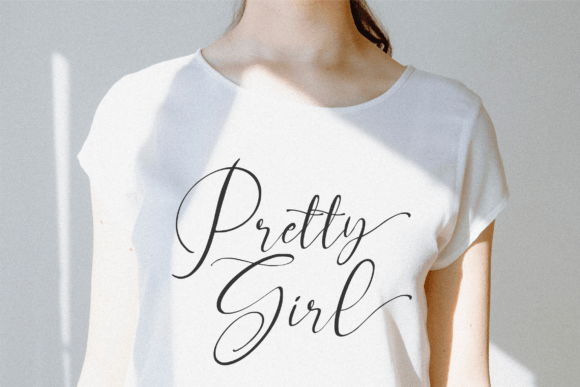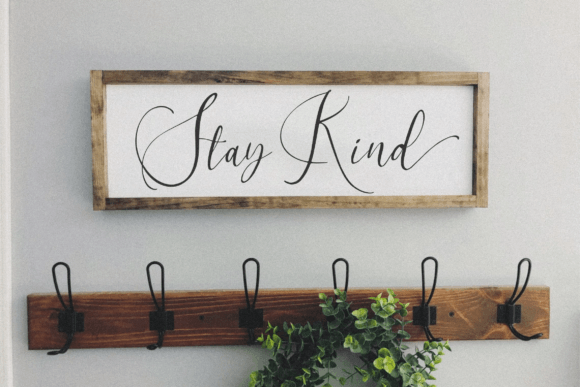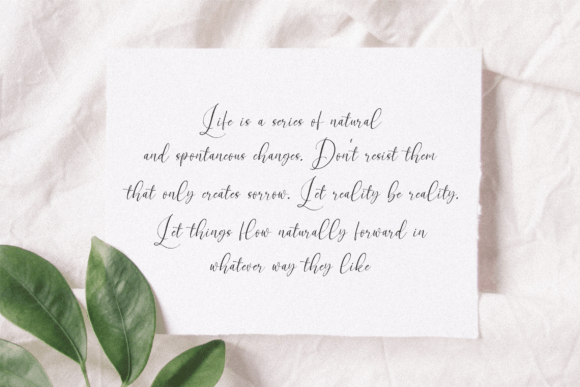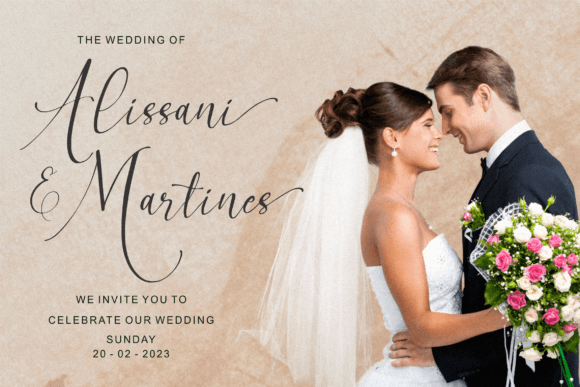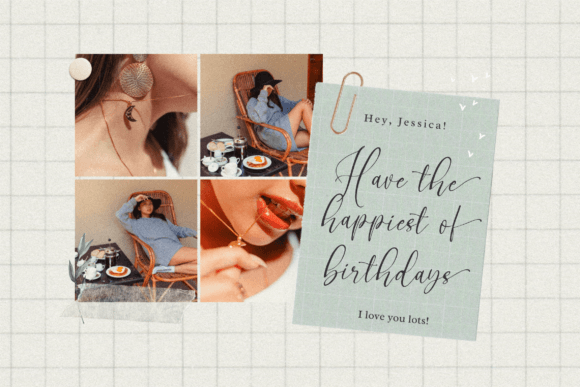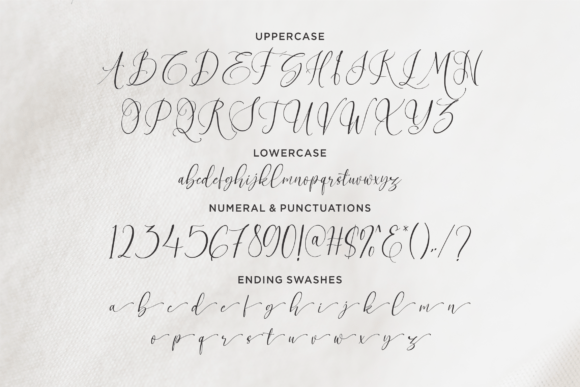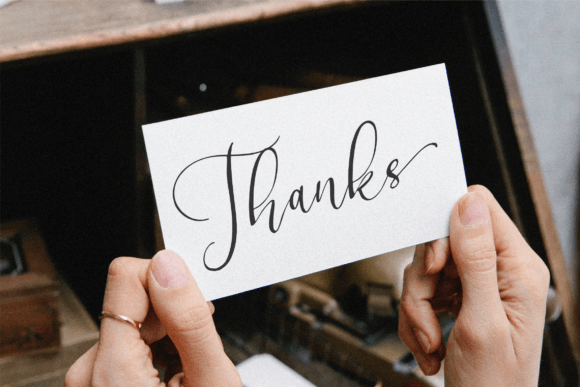
Visualgraph Font
About Visualgraph Font
Visualgraph Font is a dainty and elegant script typeface designed to bring sophistication and charm to your creative projects. Its delicate and flowing letterforms make it ideal for wedding invitations, thank-you cards, quotes, greeting cards, logos, business cards, and any design that benefits from a beautiful handwritten style.
Dainty and Elegant Handwritten Design
Visualgraph features smooth, refined strokes and well-balanced characters that blend clarity with artistic flair. The font’s graceful appearance suits both formal and casual designs, providing a unique and personal touch.
Ideal Uses for Visualgraph Font
This versatile font is perfect for:
• Wedding invitations and save-the-date cards
• Thank-you and greeting cards
• Inspirational quotes and messages
• Logos and brand identities
• Business cards and stationery
Visualgraph adds elegance and warmth to a variety of creative applications.
Why Choose Visualgraph Font?
Designers appreciate Visualgraph for its:
• Dainty and elegant handwritten style
• Clear, readable letterforms
• Versatility across print and digital media
These features make Visualgraph a practical and stylish font choice.
Add Grace and Personal Touch to Your Designs
Typography influences the mood and message of your project. Visualgraph adds grace and a personal, handcrafted feel that helps your designs connect emotionally with your audience. Whether for weddings, branding, or personal projects, this font elevates your creative vision.